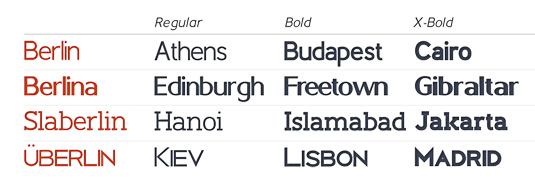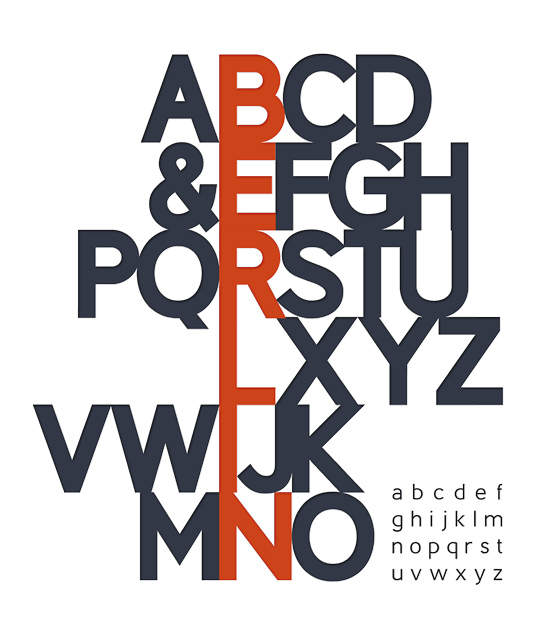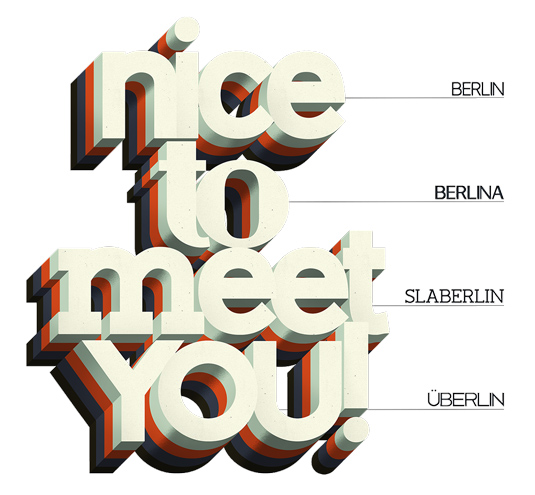
Font of the day: Berlin
Every day we showcase the best fonts on the web. Today it's Berlin by Antonio Rodrigues Jr, which is totally free to download.
Berlin by Antonio Rodrigues Jr
Today's eye-catching font of choice was created by Brazilian graphic designer and illustrator Antonio Rodrigues Jr. "Berling is a group of display fonts, inspired by the classic geometric typefaces from early last century," he explains.
A work in progress, so far Rodrigues Jr has created four versions - Berlin, Berlina, Slaberlin and Uberlin - all of which are available in regular, bold and x-bold. "They work great in headlines, branding, packaging, as well as large format text and are free for your personal and commercial use," Rodrigues Jr comments.